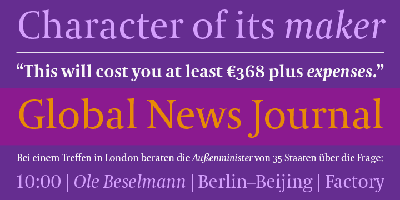
Searching for a bold and contemporary font with character? Bechilo Font Free Download offers a distinctive style that’s perfect for branding, headlines, posters, and any design that needs to make a strong visual statement.
Whether you’re designing modern logos, impactful social media graphics, or eye-catching print materials, Bechilo Font Free Download delivers a fresh and memorable style that stands out.